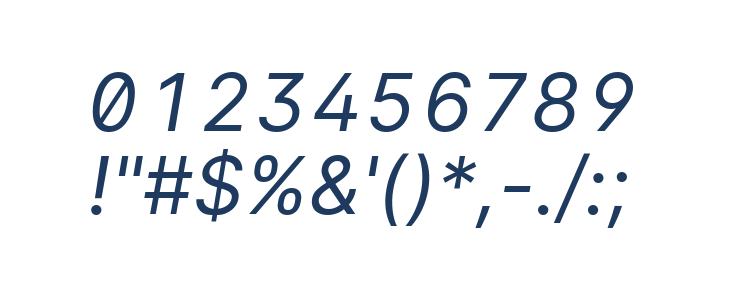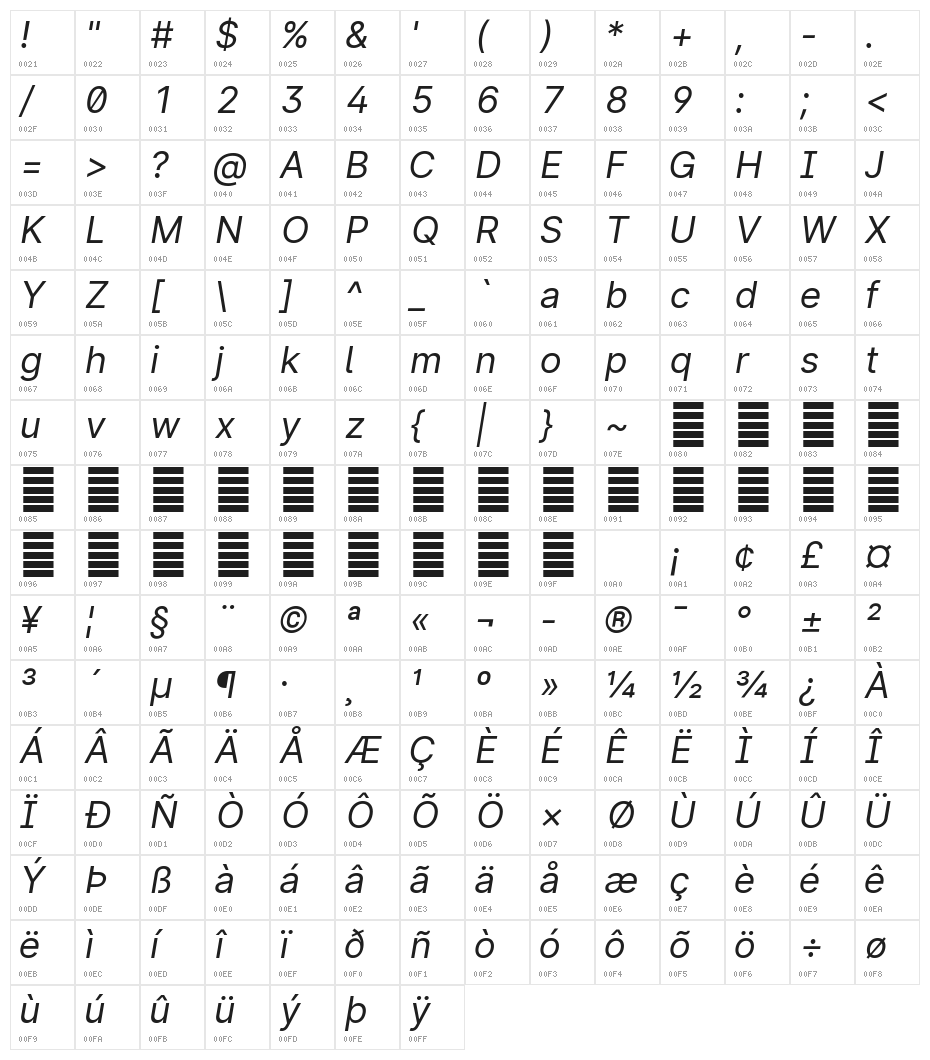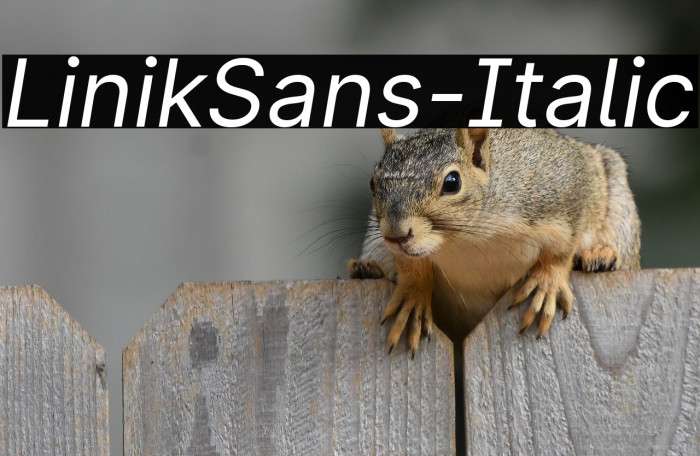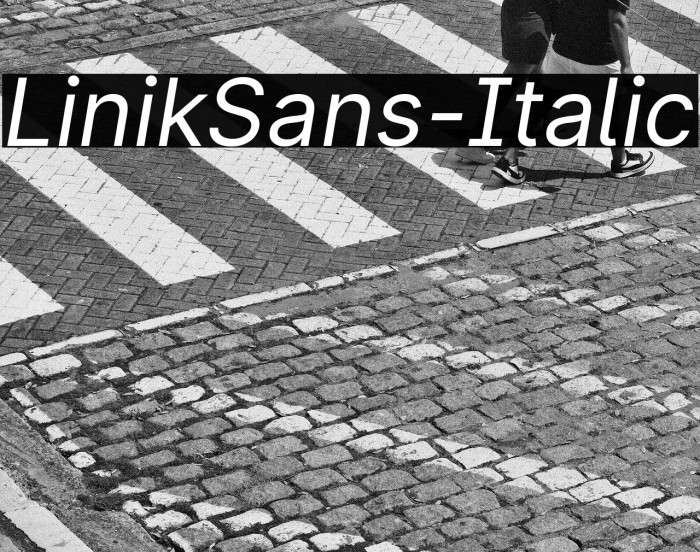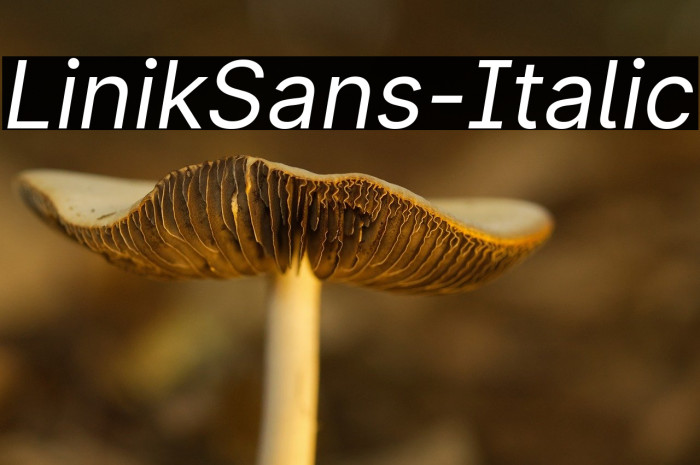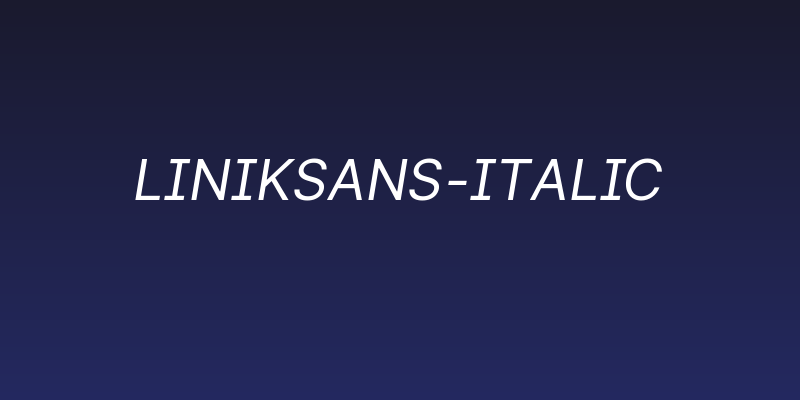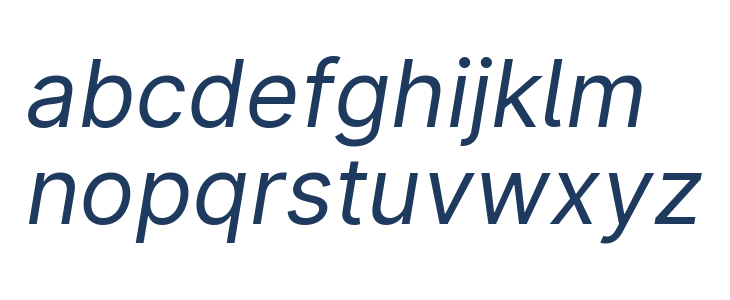
LinikSans-Italic Font
LinikSans-Italic Description
This font features a clean and modern sans-serif style with a slight italic slant, giving it a dynamic and forward-moving appearance. The characters are well-proportioned with a consistent stroke width, contributing to its readability and versatility. The uppercase letters are bold and assertive, while the lowercase letters maintain a friendly and approachable feel. The numerals are clear and distinct, ensuring legibility in various contexts. Special characters are included, enhancing its utility for diverse applications.